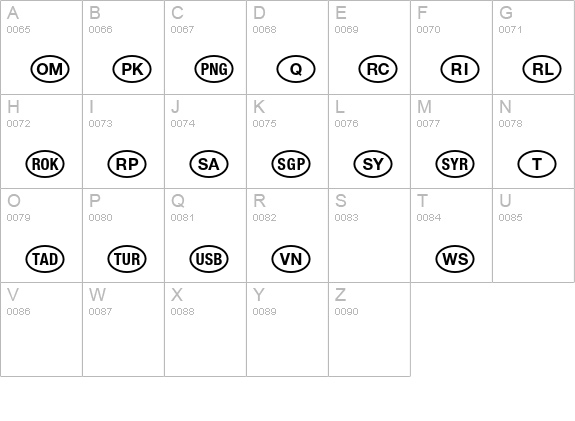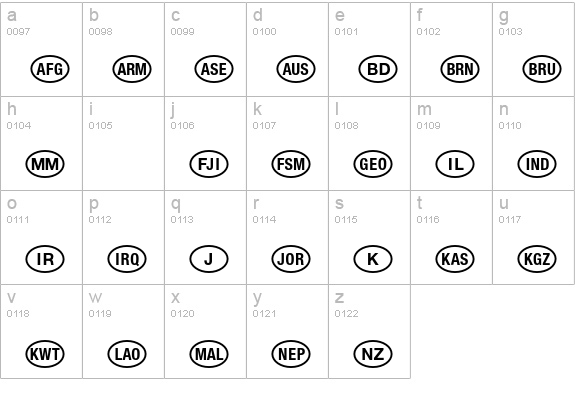
NationalCodes Asia Plus Font Details
NationalCodes Asia Plus is a modern and versatile font that combines sleek design with a touch of sophistication. With its clean lines and contemporary style, this font is perfect for a wide range of projects, from branding to web design to print materials. The NationalCodes Asia Plus font exudes elegance and professionalism, making it a great choice for any design application. What sets NationalCodes Asia Plus apart is that it is available for free download at FontsMarket.com. This means that you can easily access this high-quality font without any cost, making it a valuable addition to your font library. Whether you are a designer looking for a fresh new typeface or a business owner in need of a sleek and modern font for your marketing materials, NationalCodes Asia Plus is sure to impress. Download it today and elevate your design projects to the next level.